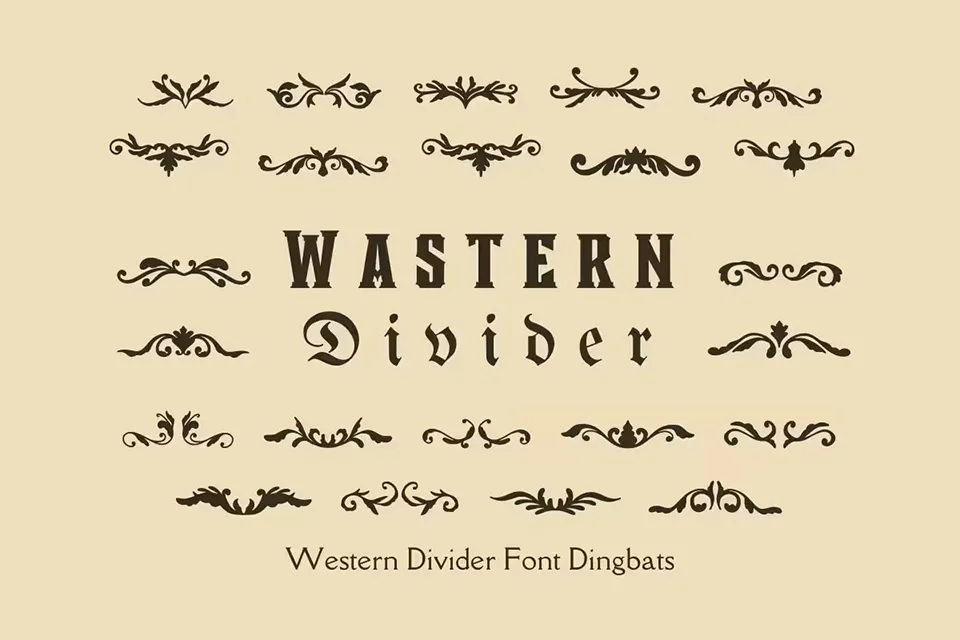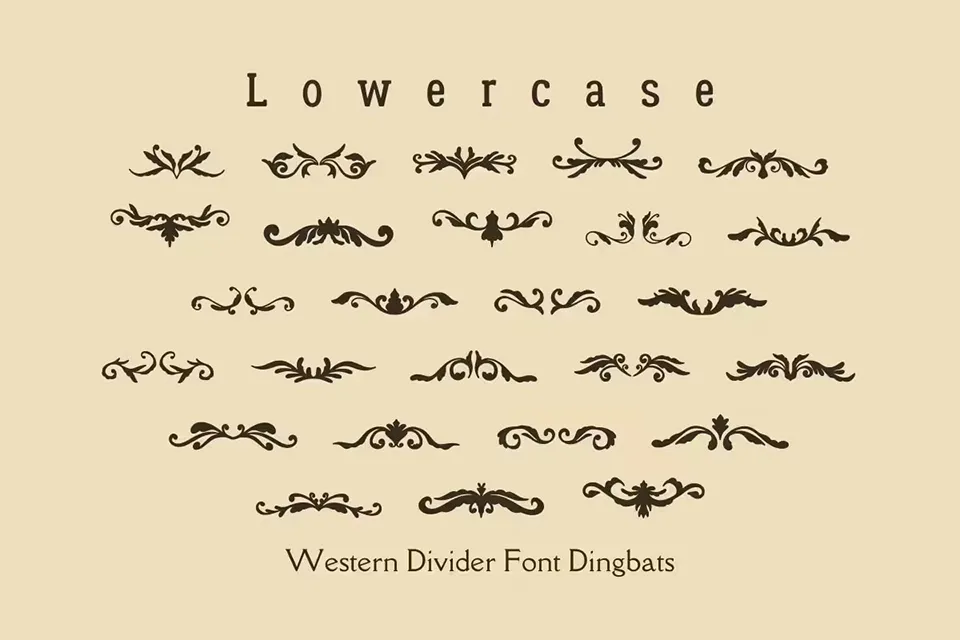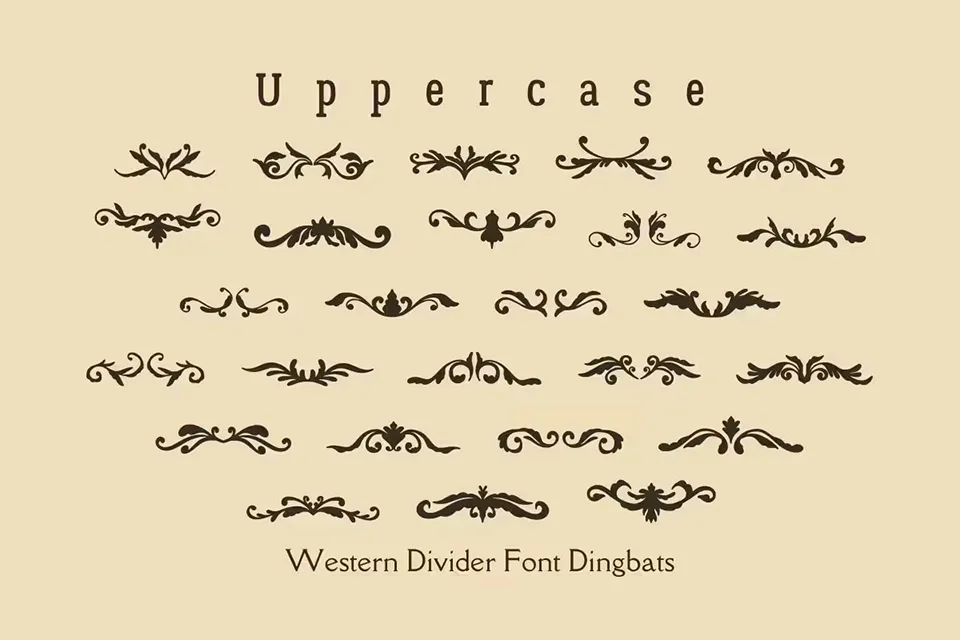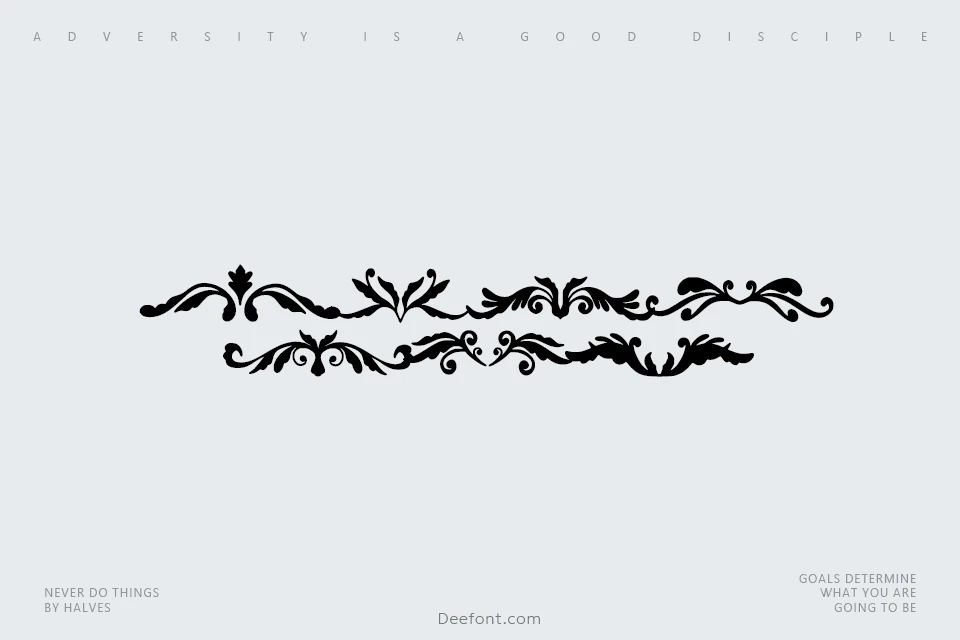
Wastern Divider Font
Wastern Divider Font is a decorative dingbat font featuring a collection of ornate Western-style dividers and embellishments. Perfect for custom invitations, stickers, t-shirts, birthday cards, wall art, web design, and any creative project that needs a touch of vintage Western flair, this font offers both upper and lowercase glyphs for versatile design possibilities.